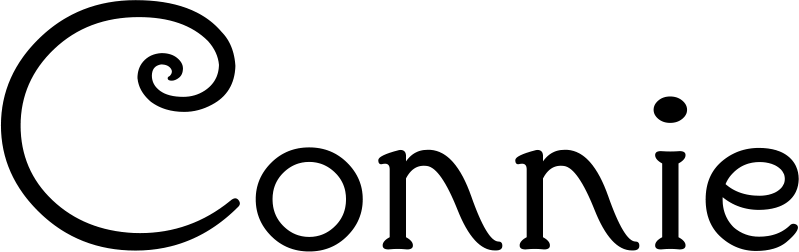
Connie Font
Go with a retro font and create a fantastic text-based layout. You can make use of this one for ancient, old book covers, flyers, and so on. Connie’s letters are thin and a little curly. Don’t waste your precious time, click on the download button and include this 50s diner font in your toolkit as soon as possible.